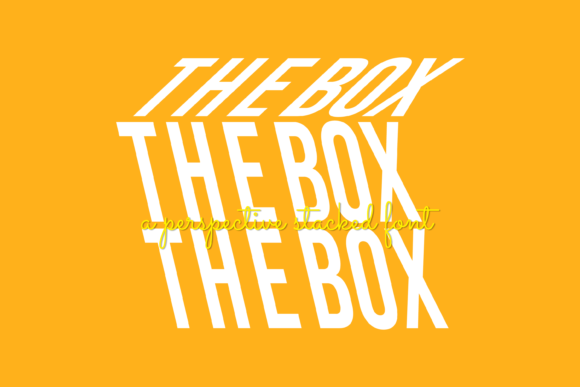
Get ready to unleash your creativity with The Box Font, the ultimate display font designed to make your designs shine! This font is not just a font; it's an expression of your unique style, a tool that transforms your ideas into captivating visuals. With its bold and playful personality, The Box Font will add a touch of magic to all your projects, whether you're a seasoned designer or just starting your creative journey.
With The Box Font, you'll never run out of inspiration. Its versatile nature makes it perfect for a wide range of projects, from eye-catching logos and posters to stunning social media graphics and invitations. Let your imagination soar as you create designs that leave a lasting impression. The Box Font is more than just a font; it's a gateway to a world of endless creative possibilities.
Whether you're a seasoned crafter or just starting, The Box Font is your perfect companion. Its clean lines and sharp edges make it ideal for cutting with Cricut machines, ensuring precise and flawless results every time. Say goodbye to frustrating miscuts and wasted materials. With The Box Font, you'll create beautiful designs with ease, turning your crafting dreams into reality.
Don't settle for ordinary fonts that blend into the background. Embrace the power of The Box Font and watch your designs come to life. Its bold and captivating characters will make your words stand out, demanding attention and leaving a lasting impression. So, why wait? Unleash your creativity today and experience the magic of The Box Font!
**Benefits:**
* Unique and captivating display font for all your creative projects
* Perfect for custom designs, DIY crafts, logos, posters, and more
* Ideal for cutting with Cricut machines, ensuring precise and flawless results
* Easy to use and suitable for both experienced designers and beginners
* Makes your designs stand out and leave a lasting impression